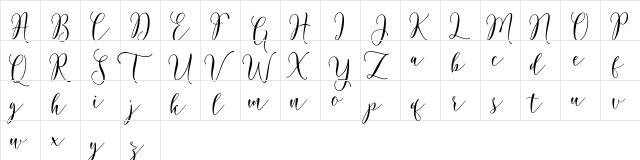
Rosetica Script Demo Regular
| Foundry | Juni Fadil Putra |
| Designer | Juni Fadil Putra |
Design Context for Rosetica Script Demo Typeface
Rosetica Script Demo flows with the natural rhythm of handwritten lettering, making it ideal for designs that call for warmth and personal expression.
Font Pairing: Combine Rosetica Script Demo with a simple geometric sans for maximum contrast — the tension between flowing curves and clean structure is a classic typographic pairing.
Pro Tip: Pair Rosetica Script Demo with a clean sans-serif for supporting text. The contrast between fluid script and geometric structure creates an elegant typographic hierarchy.